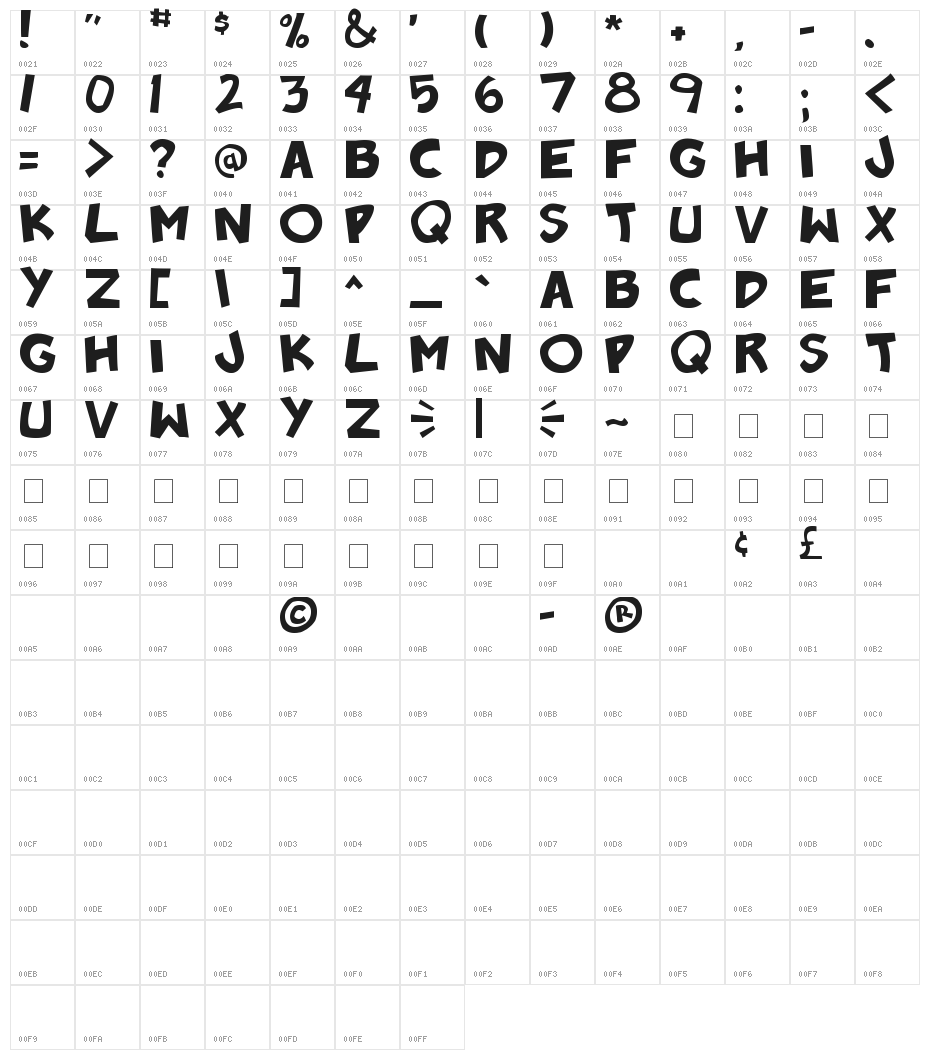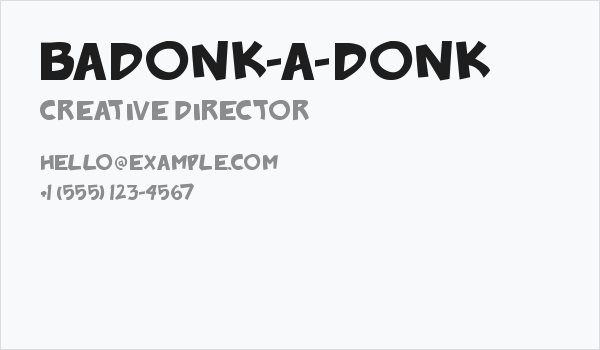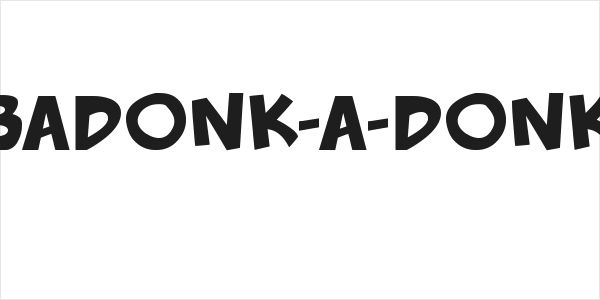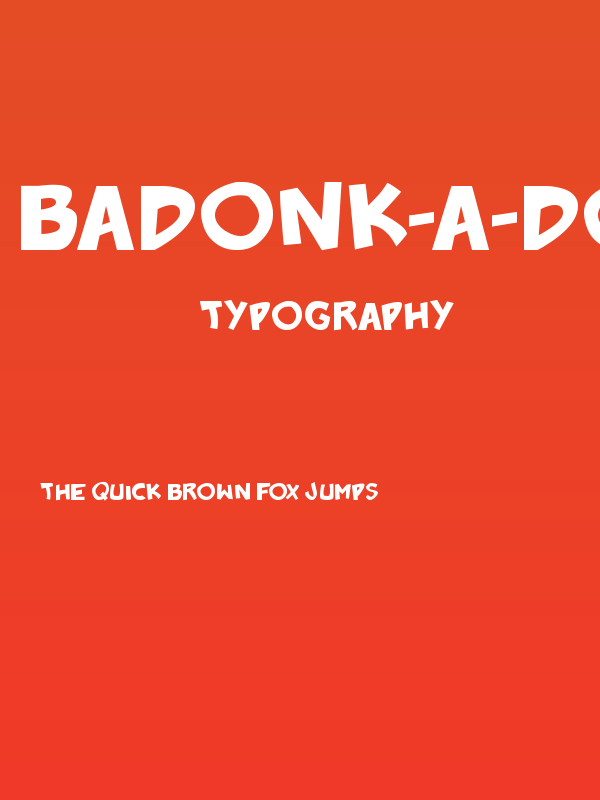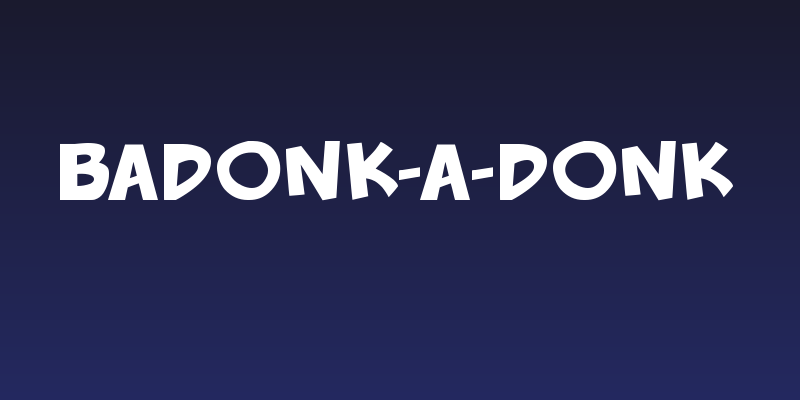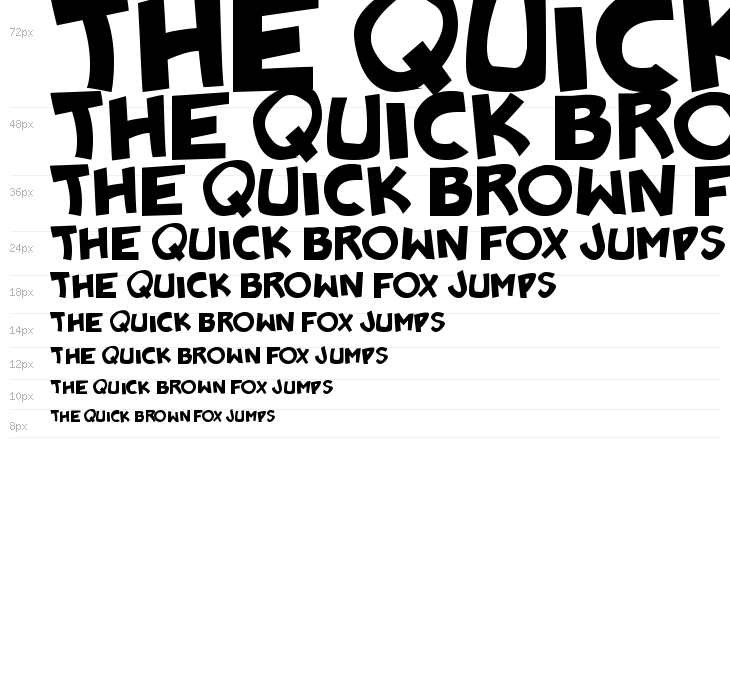
Badonk-a-donk Font
Badonk-a-donk Description
This font exudes a playful and energetic vibe, characterized by its bold and irregular letterforms. The letters have a whimsical, almost cartoonish appearance, with exaggerated curves and angles that give them a lively and dynamic feel. The uppercase and lowercase characters maintain a consistent style, with a slightly uneven baseline that adds to the font's quirky charm. The numbers and special characters follow the same playful design, making them perfect for creative and informal applications. The overall look is bold and eye-catching, ideal for projects that require a fun and engaging visual element.
| Overall Style | Playful, Cartoonish, Energetic |
| Use Case | Headlines, Posters, Branding |
| Proposed Projects | Ideal for children's books, comic strips, party invitations, and playful branding. |